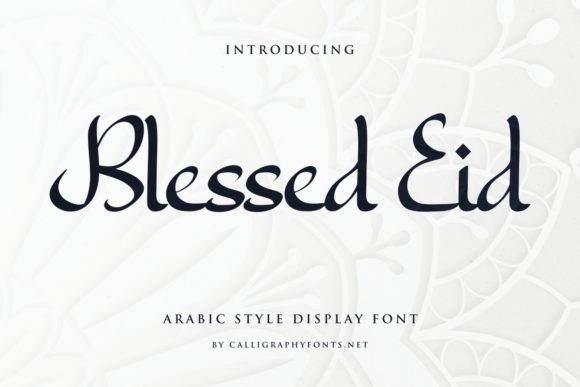
Enter the world of Blessed Eid Font, a stunning arabic calligraphy font that exudes elegance, luxury, and a touch of modernity. Its captivating strokes will weave a tapestry of beauty into your designs, making them shine with a unique and unforgettable charm.
Imagine your wedding invitations adorned with Blessed Eid's delicate swirls and graceful curves. Its intricate details will add a touch of sophistication that will leave your guests in awe. Or envision your branding materials infused with Blessed Eid's timeless beauty, creating a lasting impression that sets you apart from the crowd.
Blessed Eid is not just a font; it's an experience. It's the perfect choice for those seeking a font that speaks to the heart and ignites the imagination. Whether you're a designer, a crafter, or simply someone who appreciates the art of beautiful typography, Blessed Eid will captivate you with its undeniable allure.
Its versatility knows no bounds. Blessed Eid seamlessly adapts to a myriad of projects, from rustic wedding invitations and elegant branding materials to heartfelt greeting cards and enchanting social media posts. Let your creativity soar as you explore the endless possibilities that Blessed Eid holds.
With Blessed Eid, you're not just downloading a font; you're inviting a world of beauty and inspiration into your creative endeavors. Embrace the magic of Blessed Eid today and transform your designs into works of art.